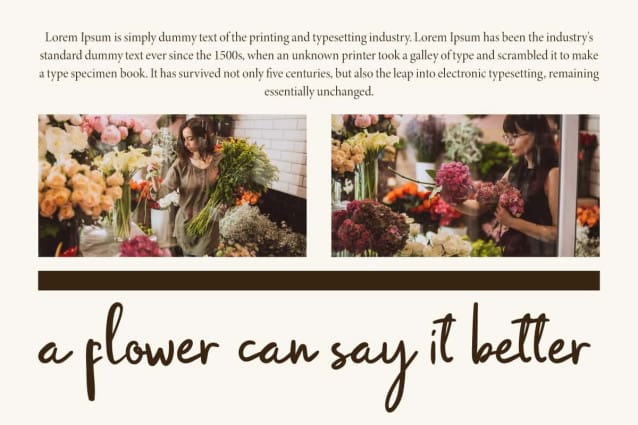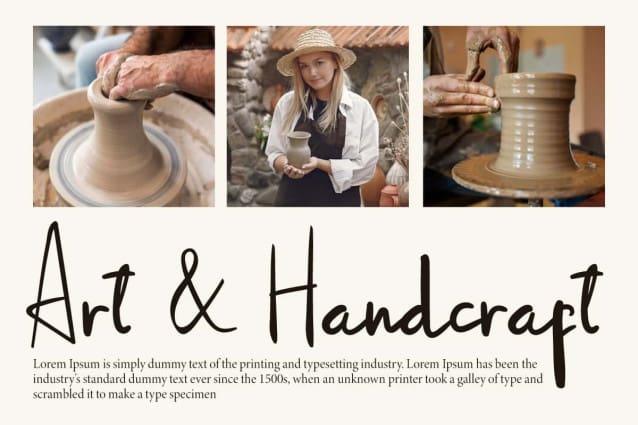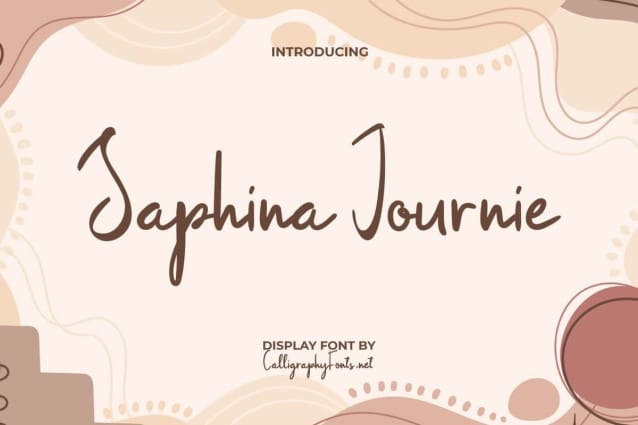
Saphina Journie Font
Saphina Journie Font is a lively and organic casual handwritten font, which will make your projects look more natural and handcrafted. You can use this font for any purposes such as accessories and merchandise, boutique, creative content, cosmetic, fashion, florist, graphic design, handicraft, jewelry, photography, printing, publishing, skincare, and more.
Saphina Journie Font is ideal for a variety of creative projects because its versatility balanced with simple yet elegant letter characteristics gives it a natural flow that adds a personal touch and creates a warm and inviting feel. You can use this font for any purposes such as blogs, brand logo, greeting cards, headers, headline, label tag, mockup, packaging, poster, quotes, sticker, template, title, watermark, website, and more.